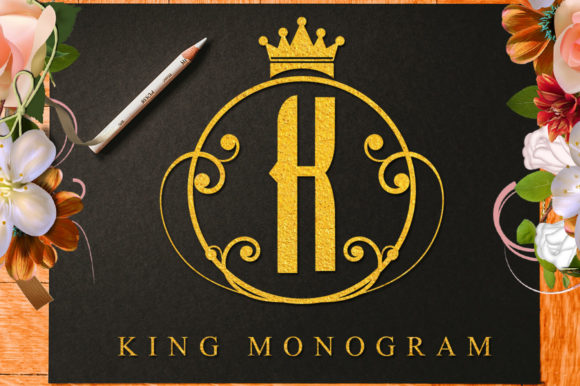
Step into the realm of elegance and sophistication with King Monogram, a decorative font family that exudes both class and modernity. Created by the visionary Mr. Soon Design, this font is a captivating blend of tradition and innovation, paying homage to the timeless beauty of calligraphy while infusing it with a contemporary flair.
King Monogram's intricate design is a testament to artistic brilliance. Its graceful curves and sweeping flourishes evoke a sense of timeless elegance, while its sharp edges and clean lines lend it a modern edge. This unique combination creates a versatile font that effortlessly enhances any project, from wedding invitations to branding materials and everything in between.
With King Monogram, you have the power to transform the ordinary into the extraordinary. Its eye-catching characters will elevate your designs, adding an unforgettable touch of sophistication that leaves a lasting impression. Its versatility knows no bounds, allowing you to effortlessly create stunning logos, eye-catching headlines, and captivating social media posts.
Imagine your wedding invitations adorned with the exquisite lettering of King Monogram, conveying the love and joy of your special day in a way that words cannot express. Its intricate details will captivate your guests, leaving them in awe of the beauty and elegance you've chosen to represent this momentous occasion.
King Monogram is not just a font; it's an artistic masterpiece that will add a touch of magic to your creative endeavors. Its versatility, elegance, and sophistication make it the perfect choice for designers, crafters, and anyone seeking to add a touch of timeless beauty to their projects.
Unleash your inner artist and embrace the limitless creative possibilities that await you with King Monogram. Its beauty and versatility will transform your designs, captivating your audience and leaving them in awe. Experience the power of elegance and sophistication today!